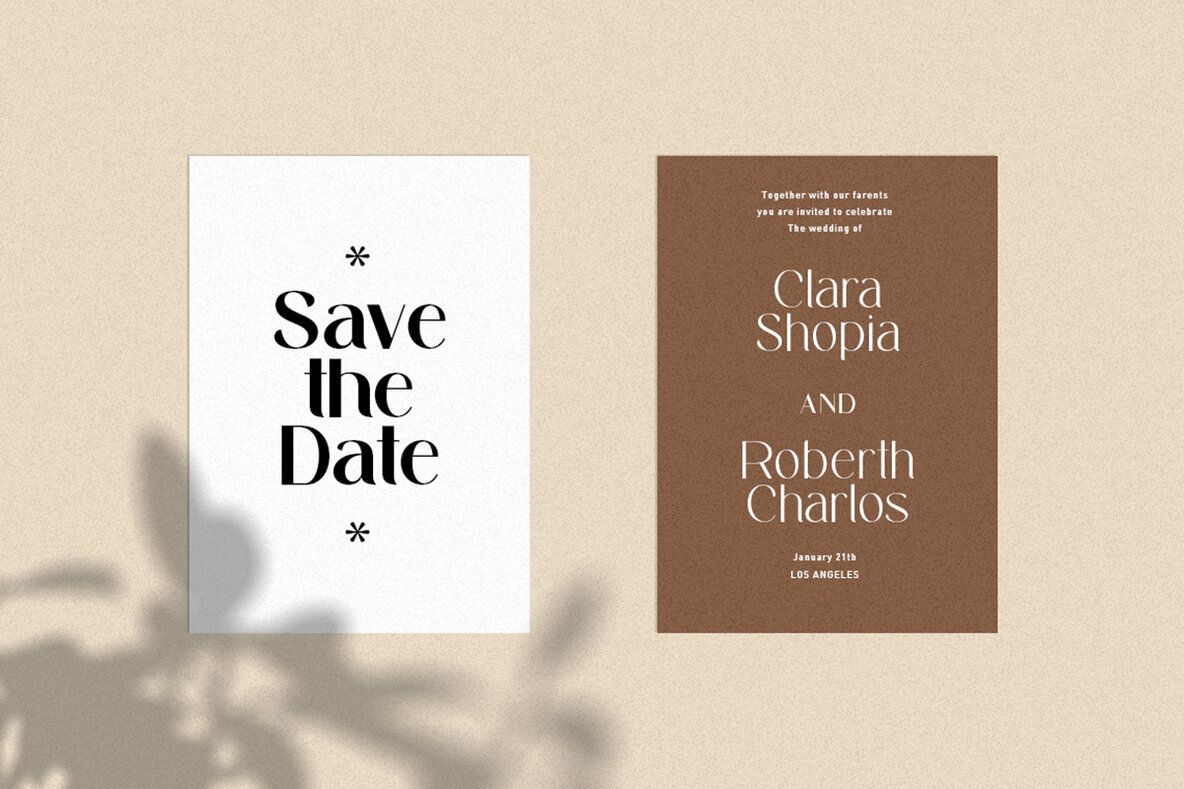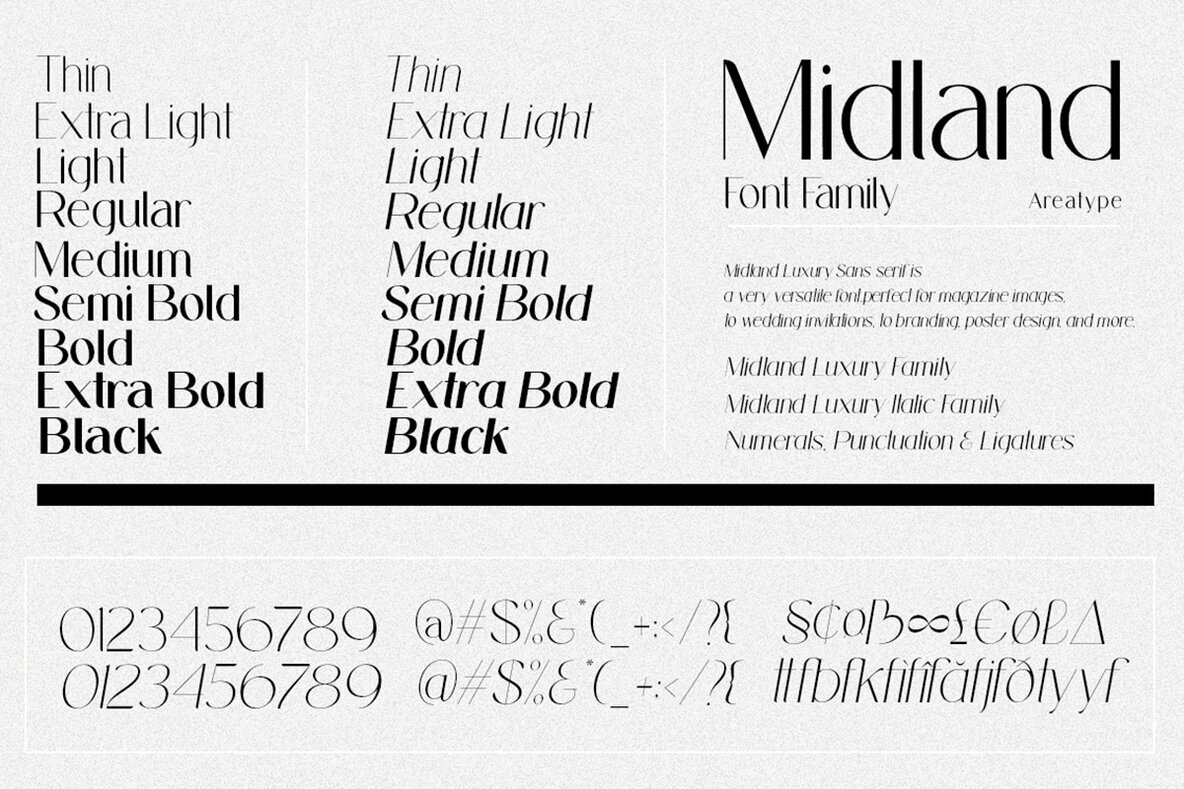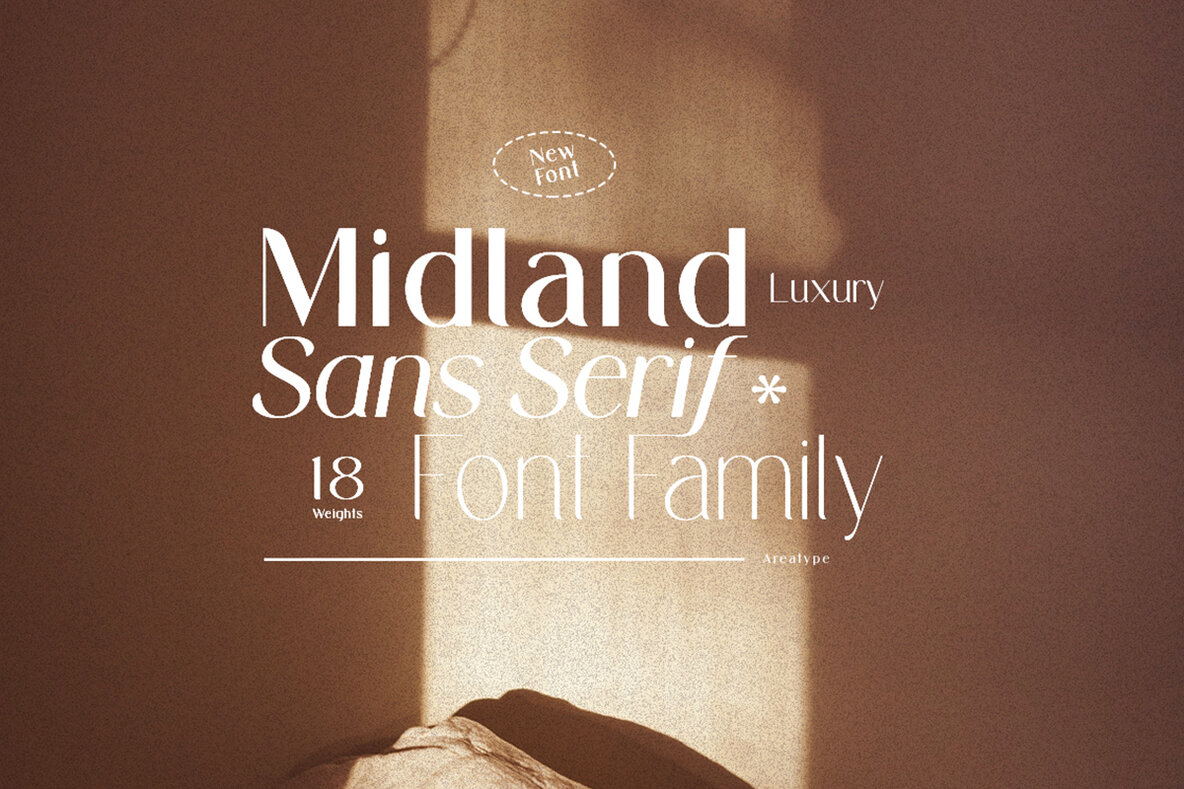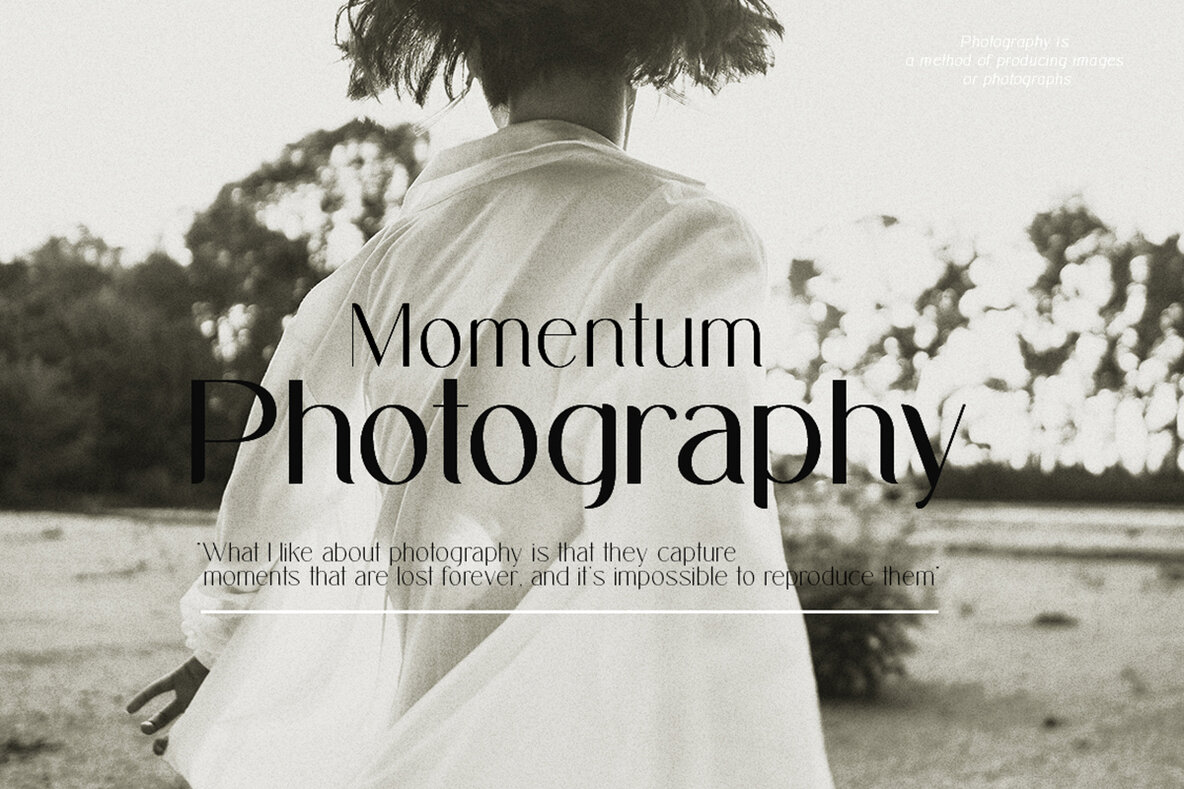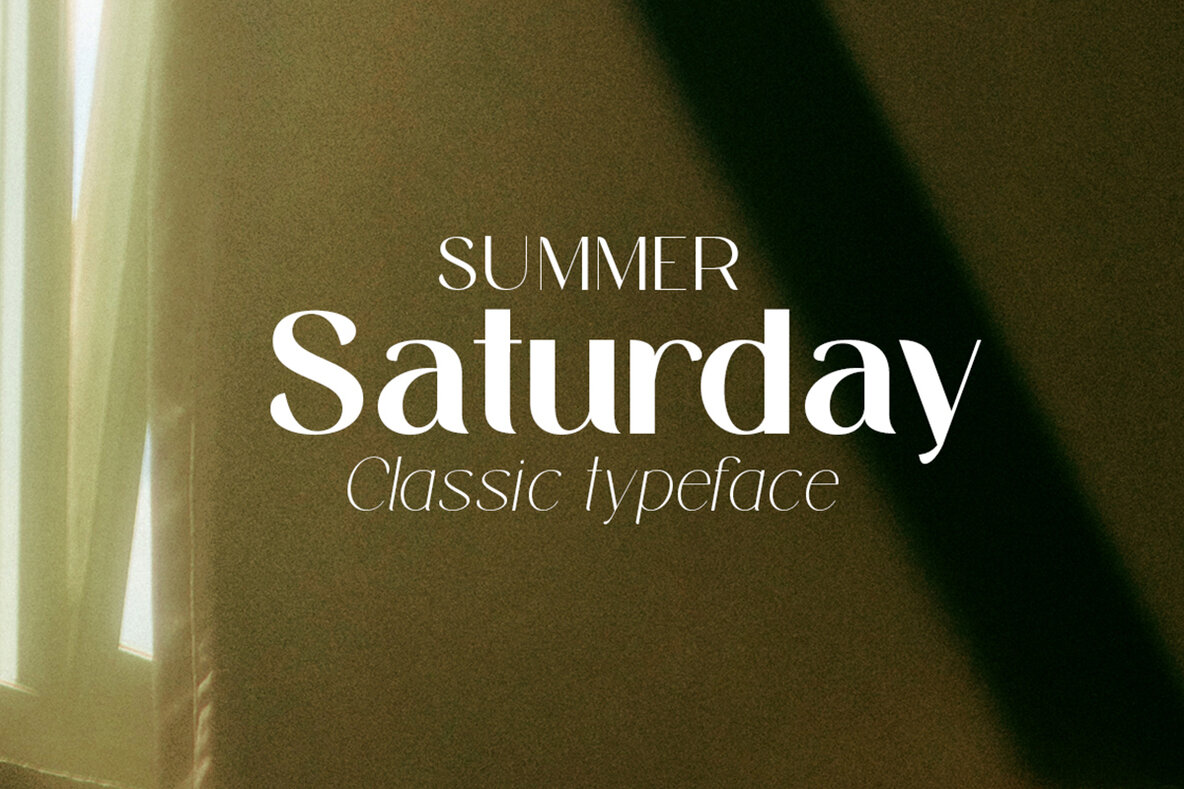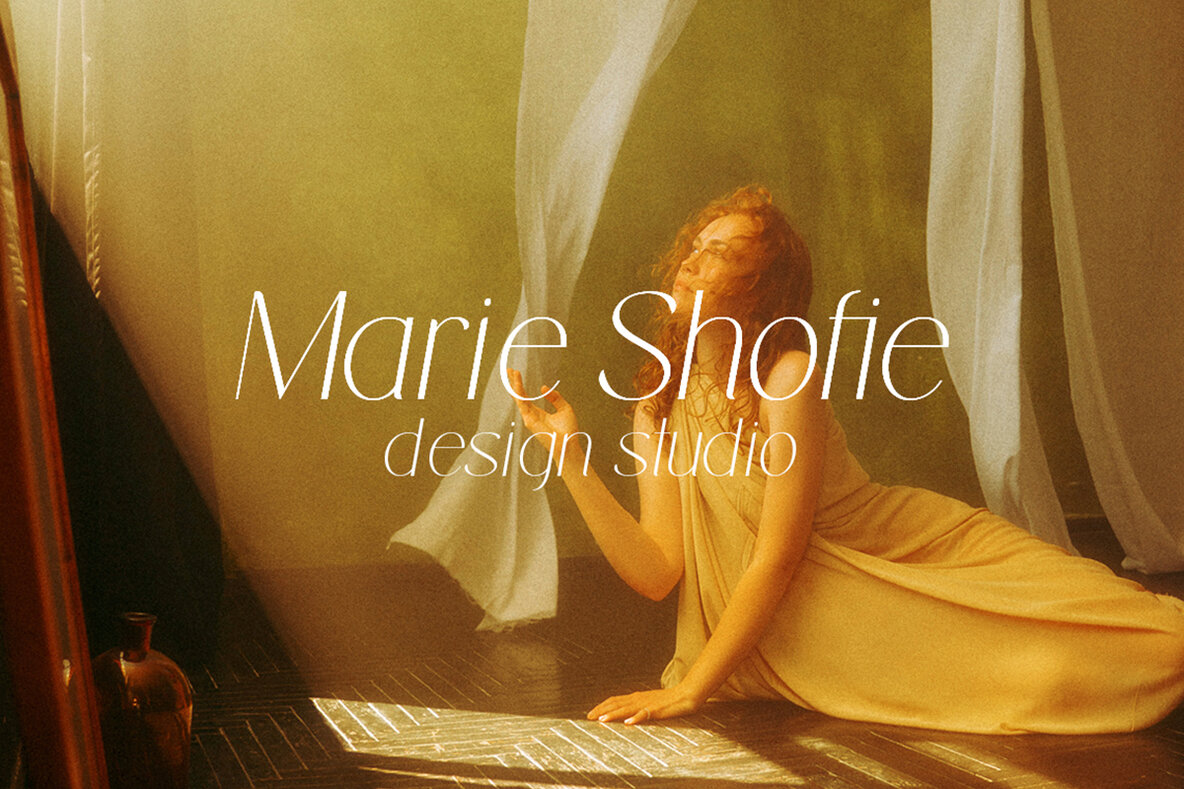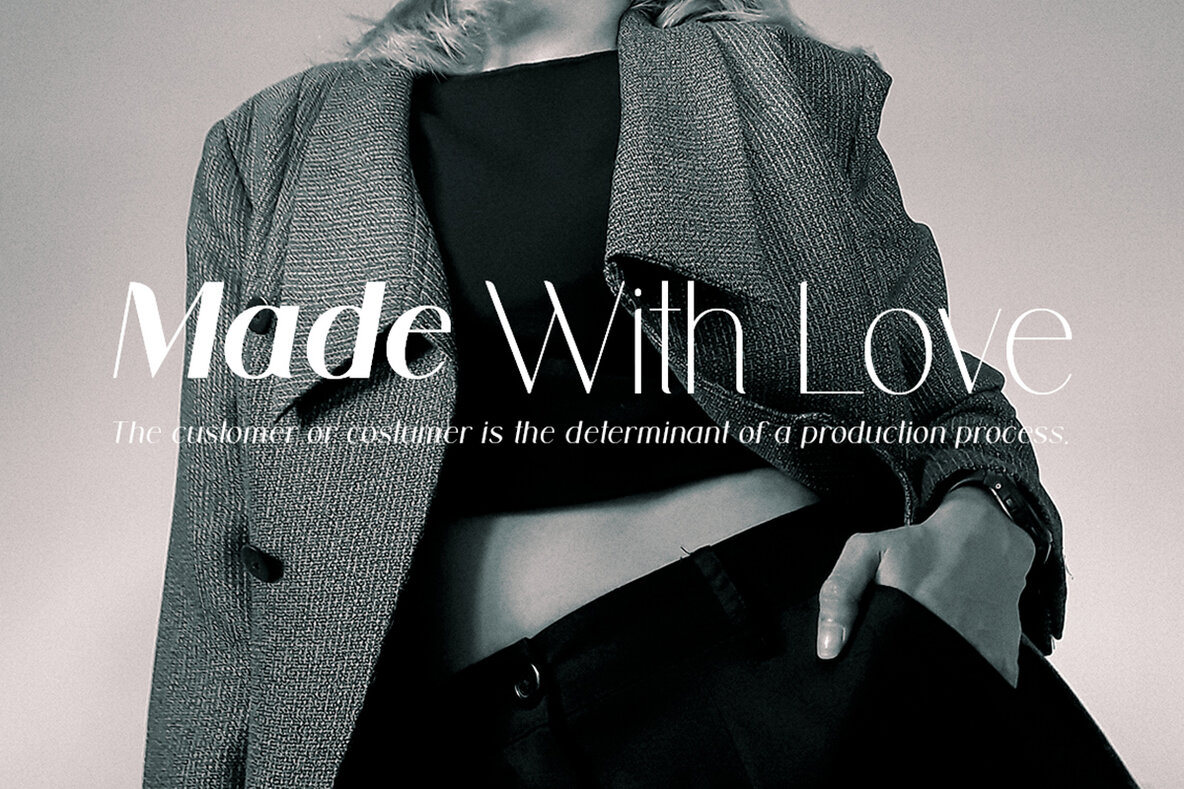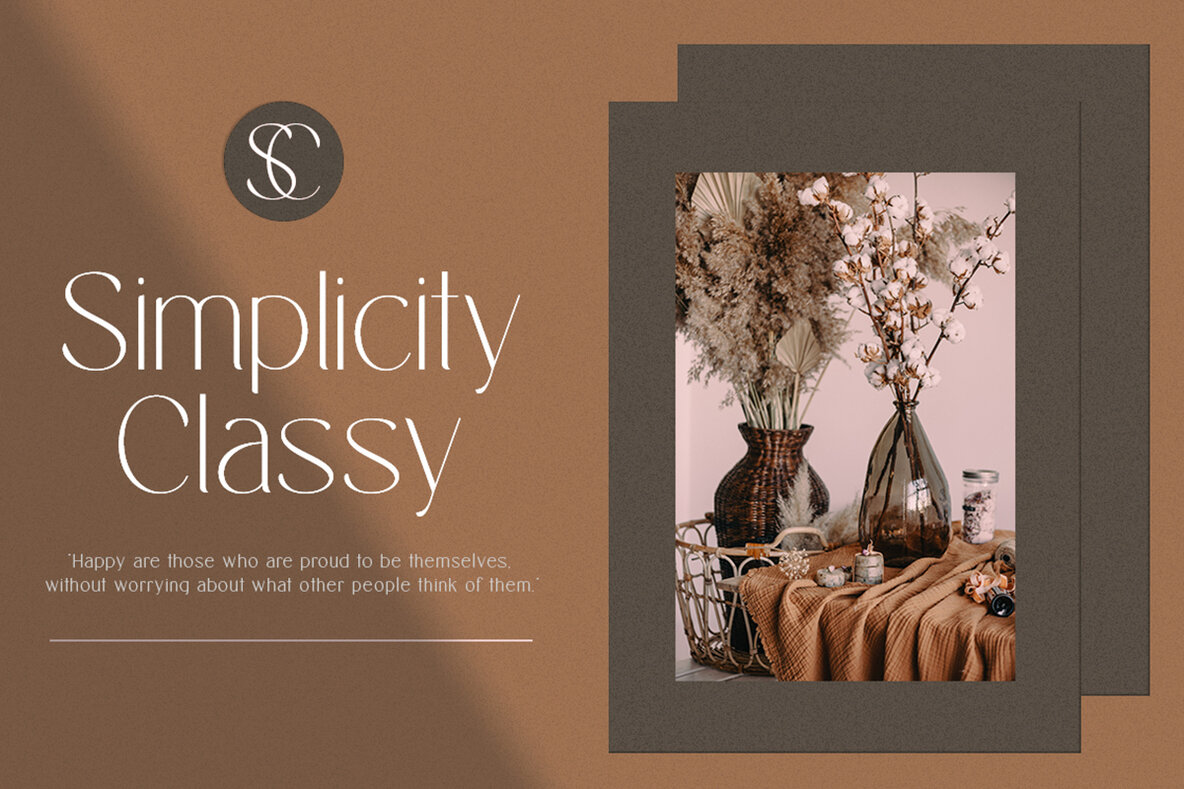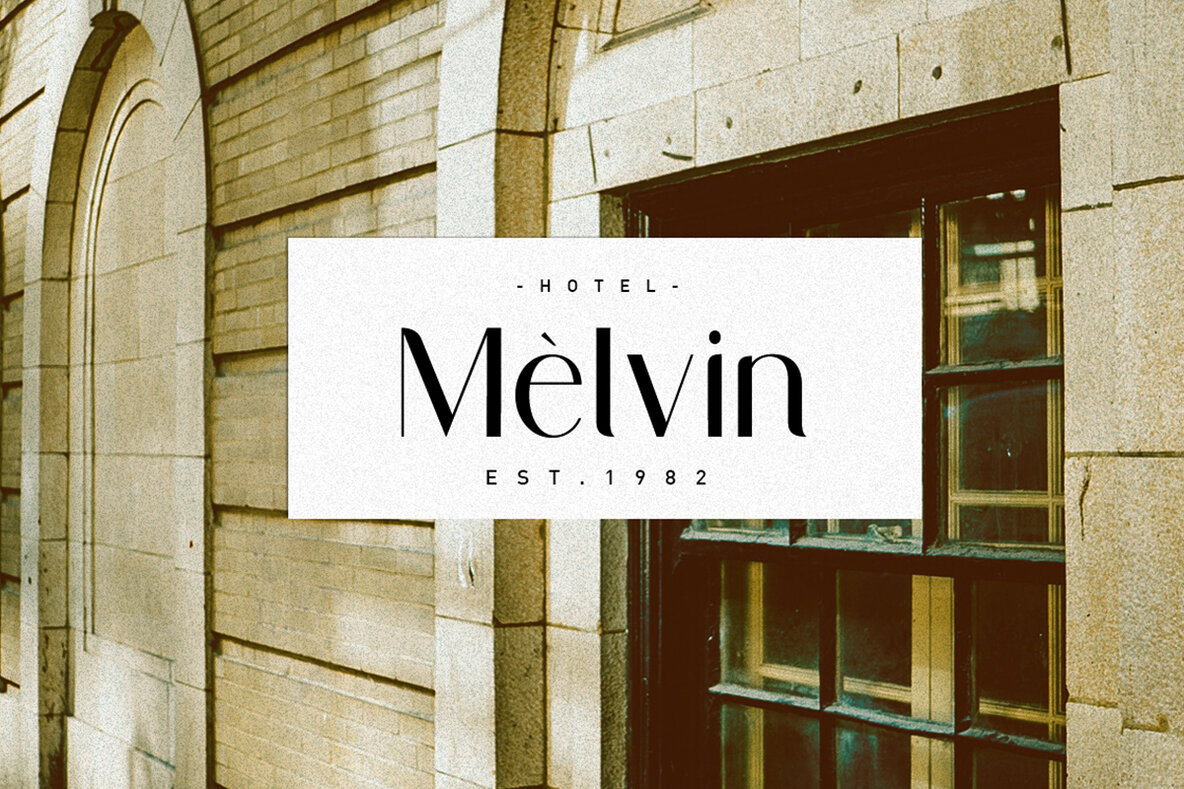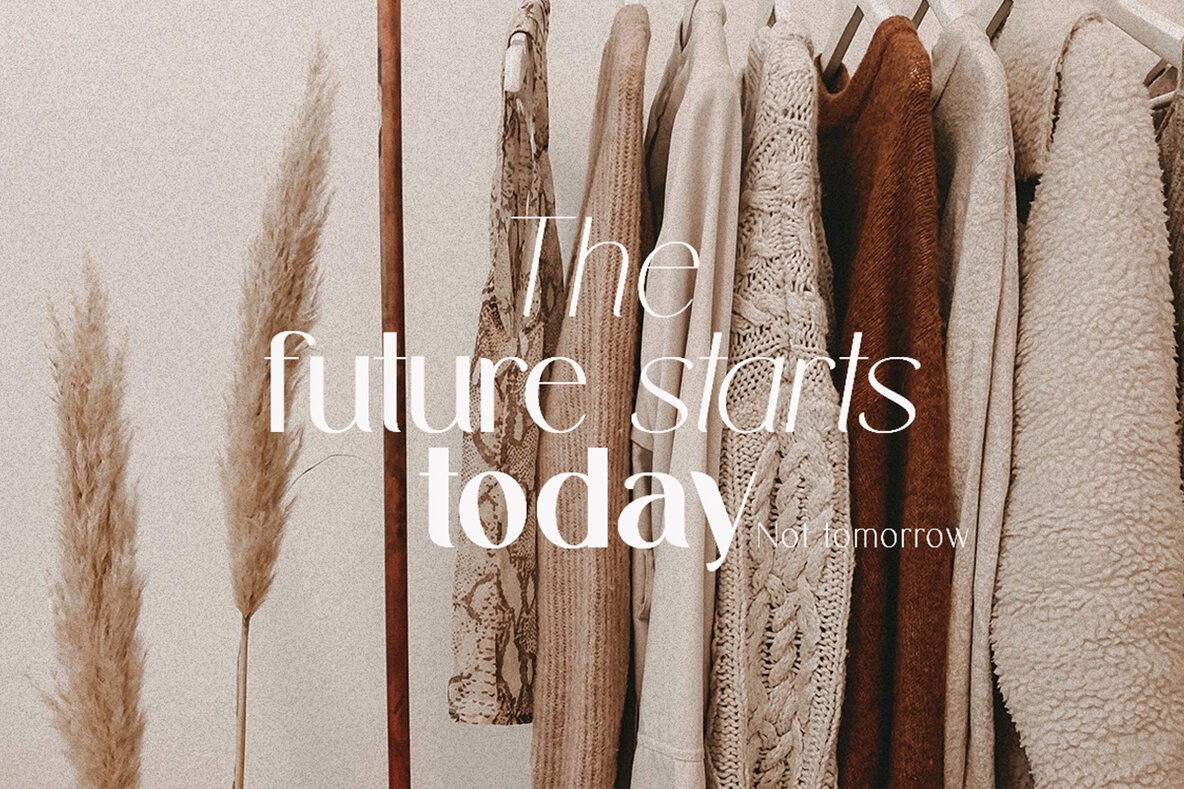
Midland Luxury Font
Midland Luxury Sans Serif combines elegance and flexibility, making it ideal for a variety of design applications. From enhancing magazine layouts and crafting stunning wedding invitations to invigorating brand imagery and creating striking poster designs, Midland Luxury adapts to your creative needs.Midland Luxury: A Versatile Sans Serif